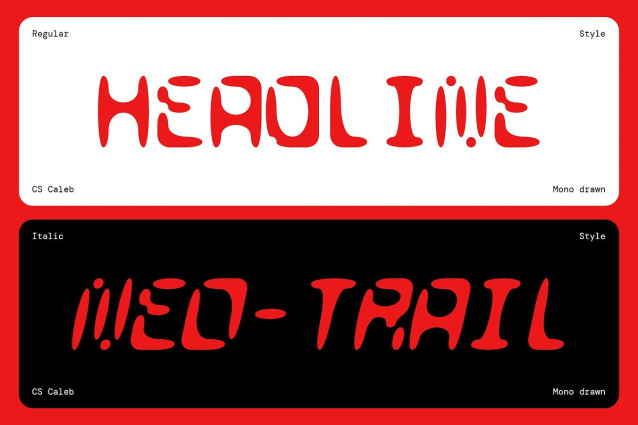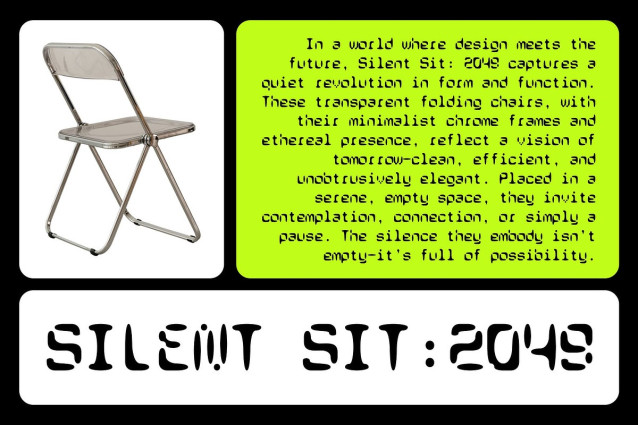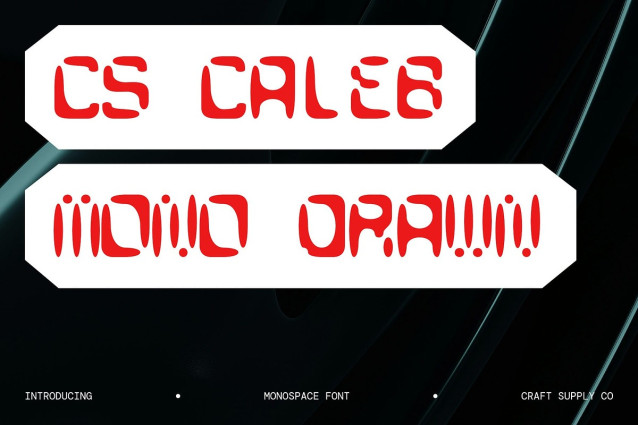
CS Caleb Mono Drawn Font
CS Caleb Mono Drawn Font – This is a display font that captures the charm of vintage digital typography. Its monospaced and pixelated form draws inspiration from old-school computer terminals, 8-bit games, and early tech interfaces. Each character aligns in a fixed-width grid, giving it a structured, nostalgic look rooted in the aesthetics of classic computing.
Drawn Effect for Handmade Texture Adding a drawn effect, the font introduces a raw, organic touch that softens its rigid digital base. This hand-drawn texture gives the letters a more personal and expressive quality, creating a contrast between technological order and artistic imperfection.
Fusion of Vintage Tech and Illustrative Flair The result is a unique fusion of retro aesthetics and rough illustrative style, blending pixel precision with creative grit. It’s a versatile typeface that feels at home in both nostalgic digital settings and contemporary, artsy design spaces.
Perfect for Bold and Experimental Projects Ideal for digital nostalgia themes, creative posters, alternative branding, and editorial layouts, this vintage-style typeface brings a distinctive, expressive voice. Whether you’re channeling the past or pushing design boundaries, this font adds character, clarity, and a playful tech-meets-handmade spirit.